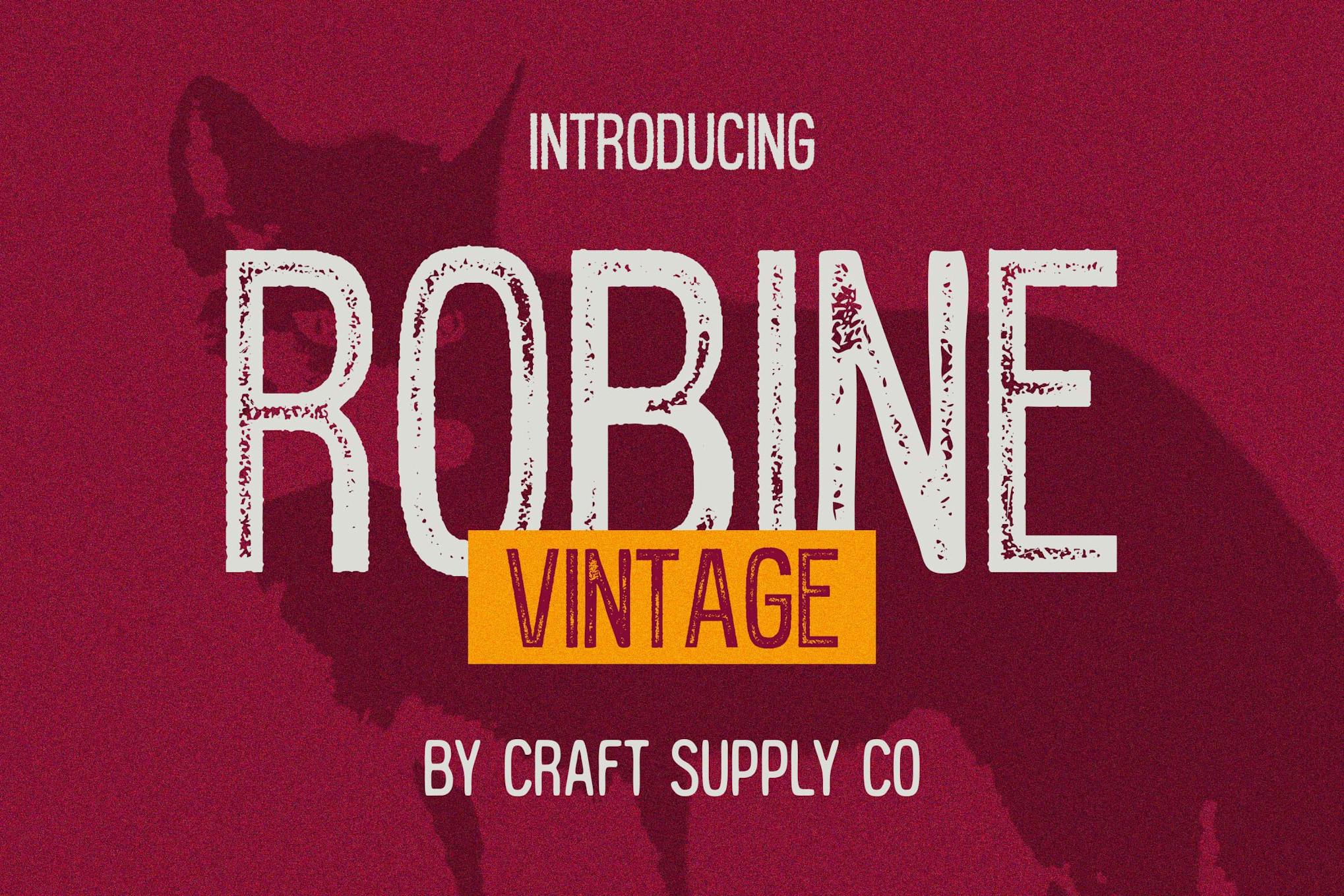
Robine Vintage Font
Robine Vintage Font is perfect for retro branding projects, classic logo design, vintage poster art, nostalgic packaging design, heritage brand identity, antique signage systems, period-themed graphics, traditional advertising materials, and authentic historical typography applications.
What makes Robine Vintage Font exciting is its timeless elegance that captures the sophisticated charm and refined character of classic mid-century typography with remarkable authenticity. This distinguished typeface features carefully preserved period details, balanced proportions, and vintage personality that evokes the golden age of traditional craftsmanship and quality design. The font's nostalgic appeal and classic sophistication make it ideal for brands that need to communicate heritage, reliability, and timeless quality through typography that connects with audiences' appreciation for genuine vintage aesthetics and enduring design principles.
Robine Vintage Font family includes multiple classic variations: Regular, Bold, Light, Condensed, Extended, and Ornate versions. Each style maintains the distinctive vintage aesthetic while offering different levels of period authenticity and visual weight, providing designers with comprehensive tools for creating cohesive retro typography systems and authentic period-appropriate design applications.
The Robine Vintage Font Free Download provides access to premium vintage typography that transforms contemporary designs into authentic period masterpieces. This font excels in heritage brands, artisanal companies, luxury goods, and traditional businesses where classic appeal and historical authenticity enhance brand credibility and emotional connection with audiences seeking genuine quality and timeless craftsmanship.
Design professionals appreciate Robine Vintage Font for its versatility and authentic vintage character. The font's balanced proportions and period-appropriate details work beautifully in both intimate packaging applications and large-scale heritage campaigns. Its classic presence appeals to audiences who value traditional quality, craftsmanship, and authentic historical design elements.
The comprehensive character set includes vintage symbols, decorative elements, and extensive multilingual support that enhances the classic aesthetic. Robine Vintage Font Free Download enables creative teams to explore period combinations and authentic vintage applications before investment.
Whether used for heritage brand development or contemporary vintage-inspired campaigns, Robine Vintage Font consistently delivers authentic vintage typography that resonates with audiences seeking genuine historical character, classic sophistication, and the timeless appeal of traditional design excellence and enduring quality standards.